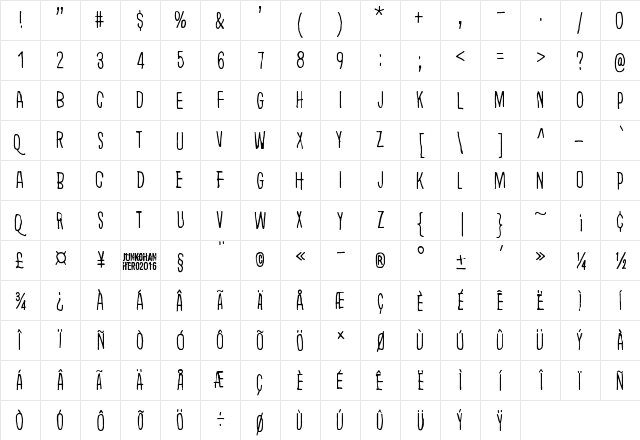
I love the smell of rain Regular
Design Context for I love the smell of rain Typeface
I love the smell of rain is a composed and adaptable typeface that performs quietly and consistently across a wide range of design contexts.